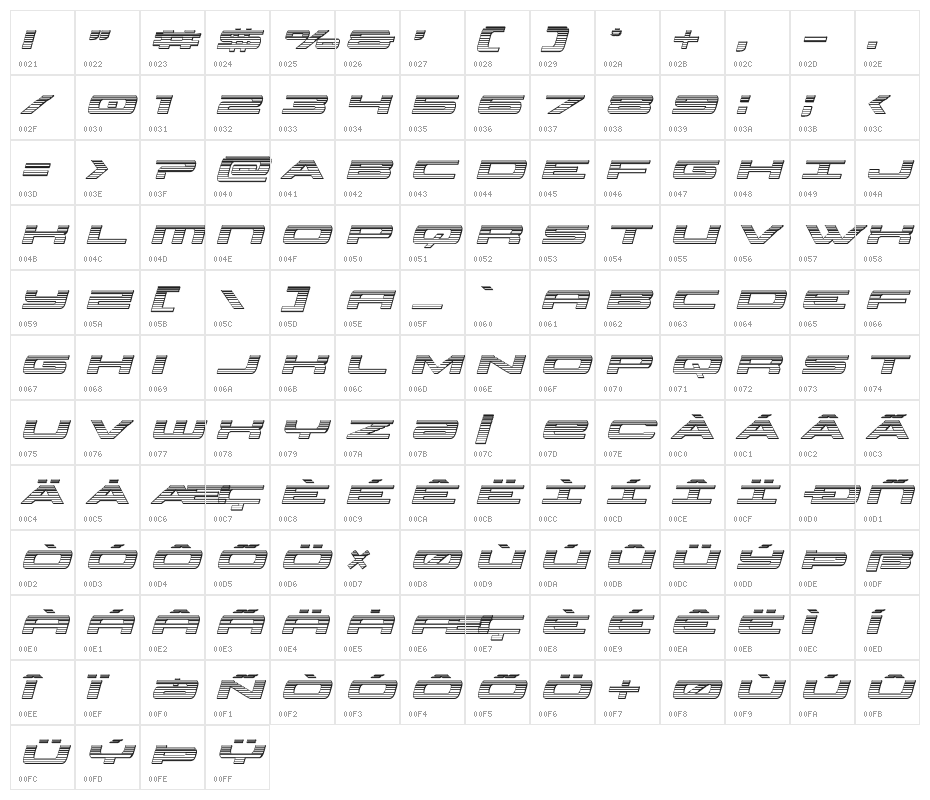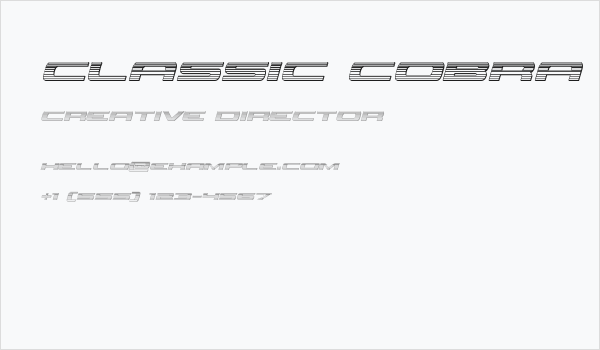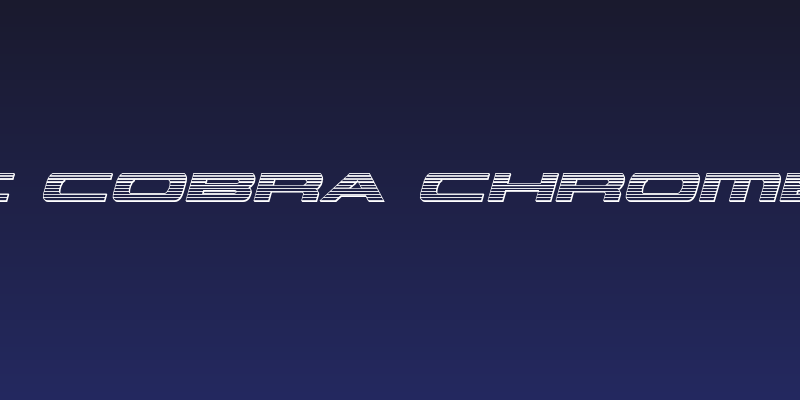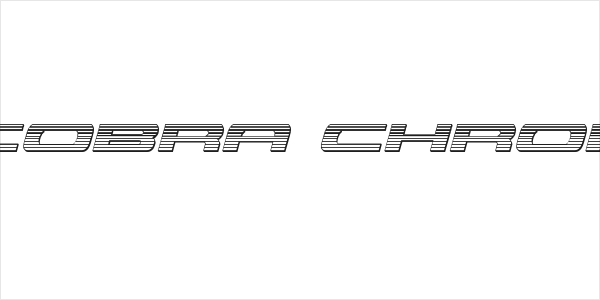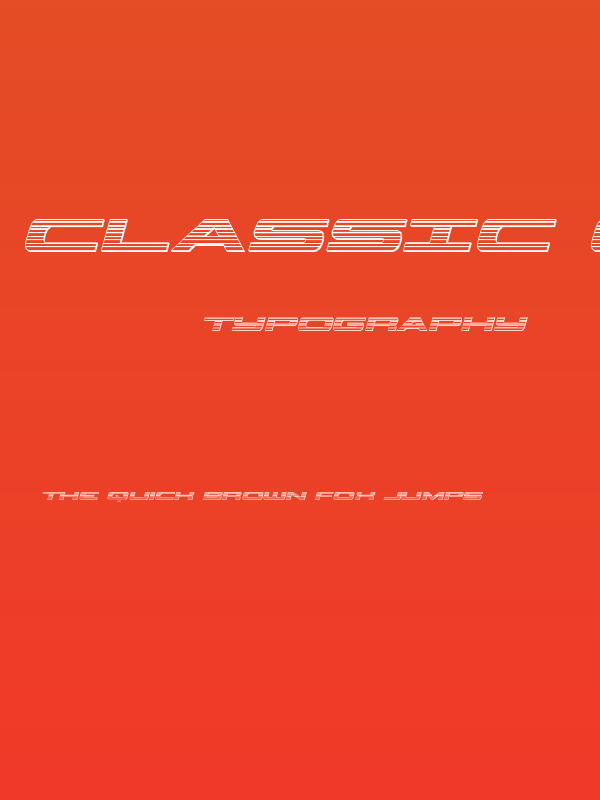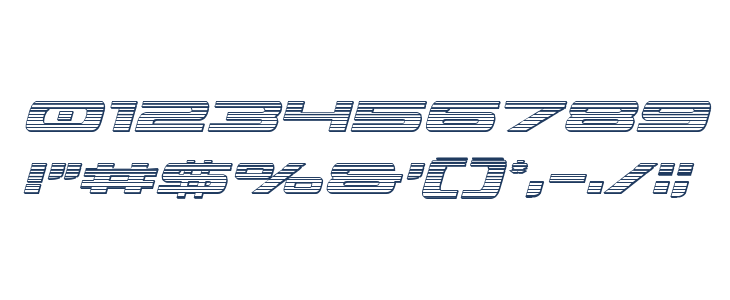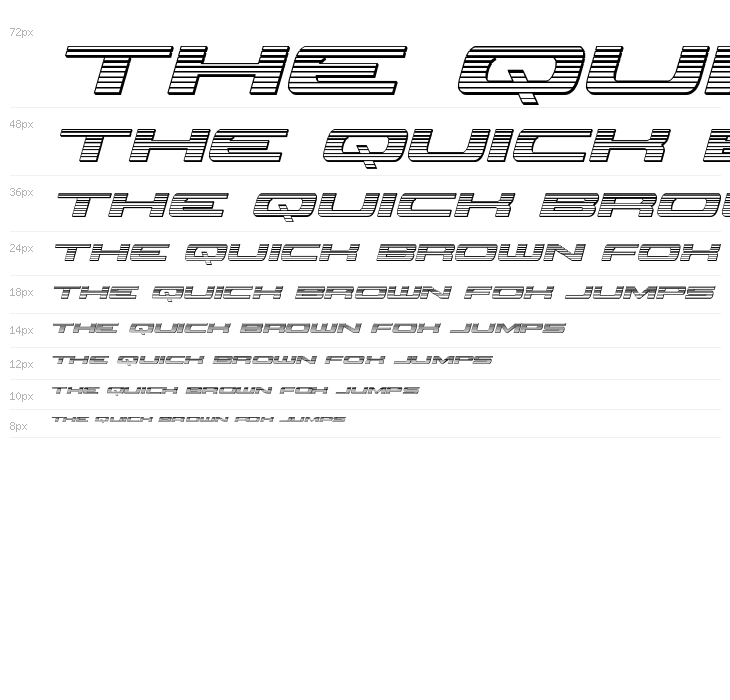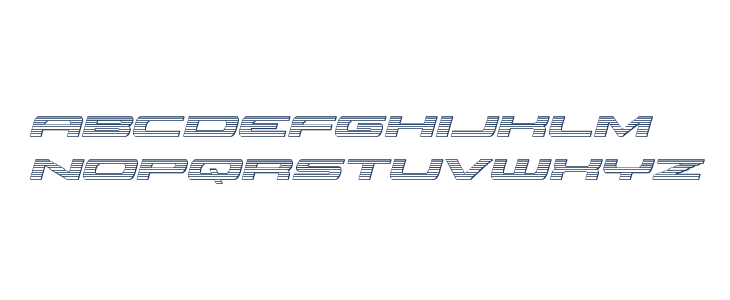
Classic Cobra Chrome Italic Font
Classic Cobra Chrome Italic Description
This font features a sleek, futuristic design with a chrome-like appearance. The characters are italicized, giving them a dynamic and forward-leaning posture. Each letter is composed of multiple parallel lines, creating a striped effect that enhances its modern aesthetic. The font maintains a consistent thickness throughout, with sharp angles and clean lines that contribute to its high-tech look. The spacing between characters is relatively tight, emphasizing the continuous flow of the text. This font is ideal for projects that require a bold, contemporary style with a touch of sophistication.
| Use Case | Logos, Headlines |
| Proposed Projects | Ideal for automotive branding, tech company logos, futuristic posters, and video game titles. |